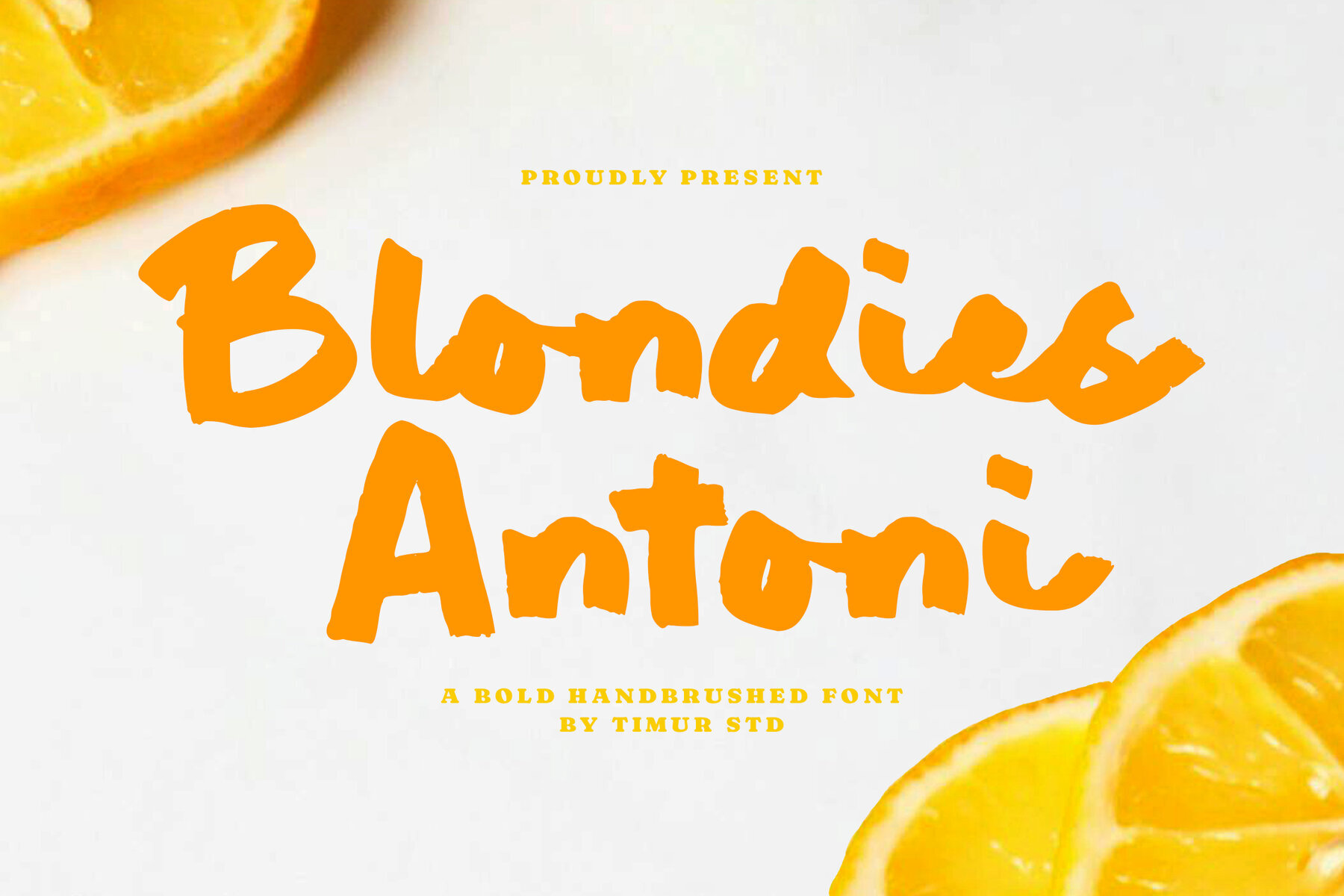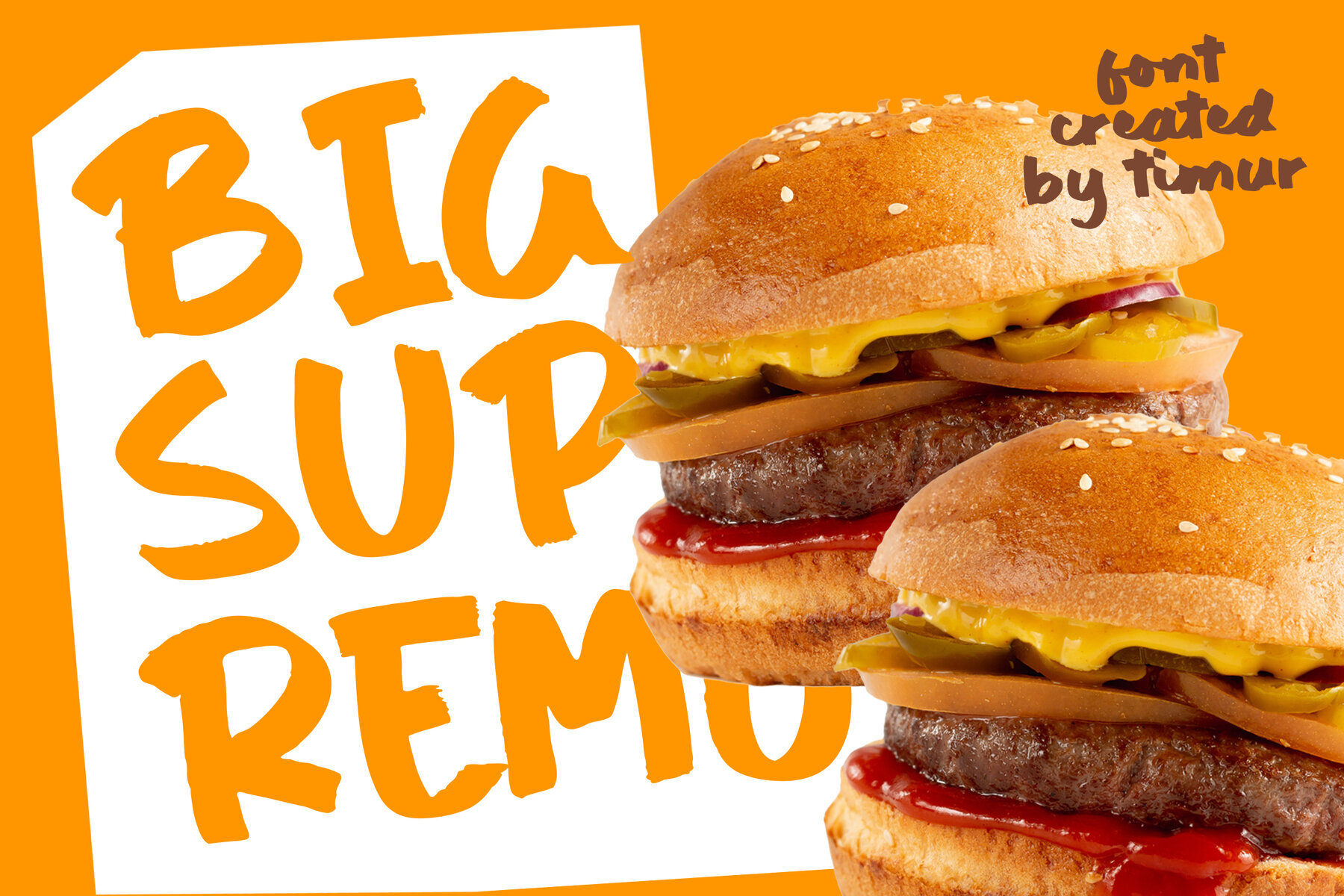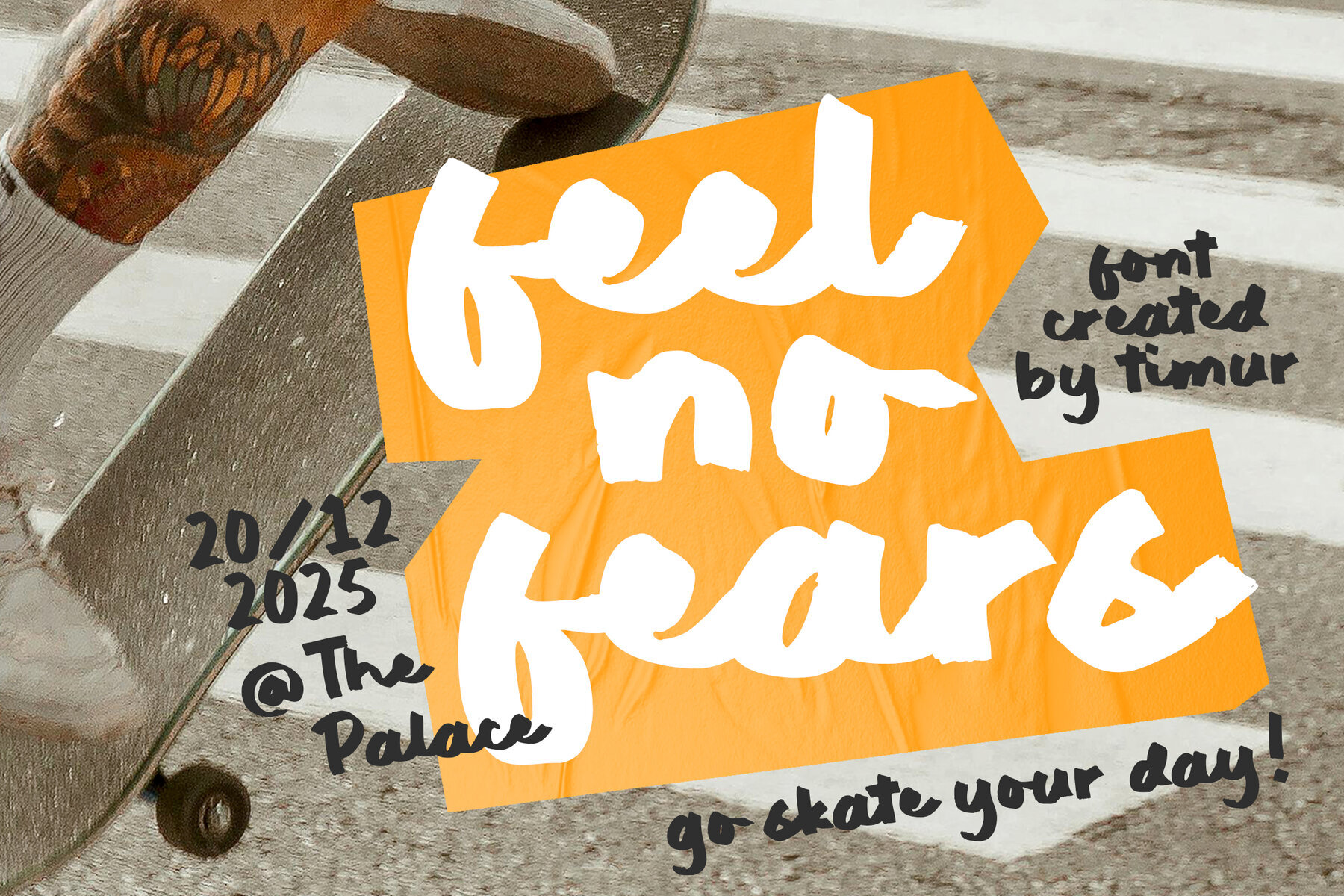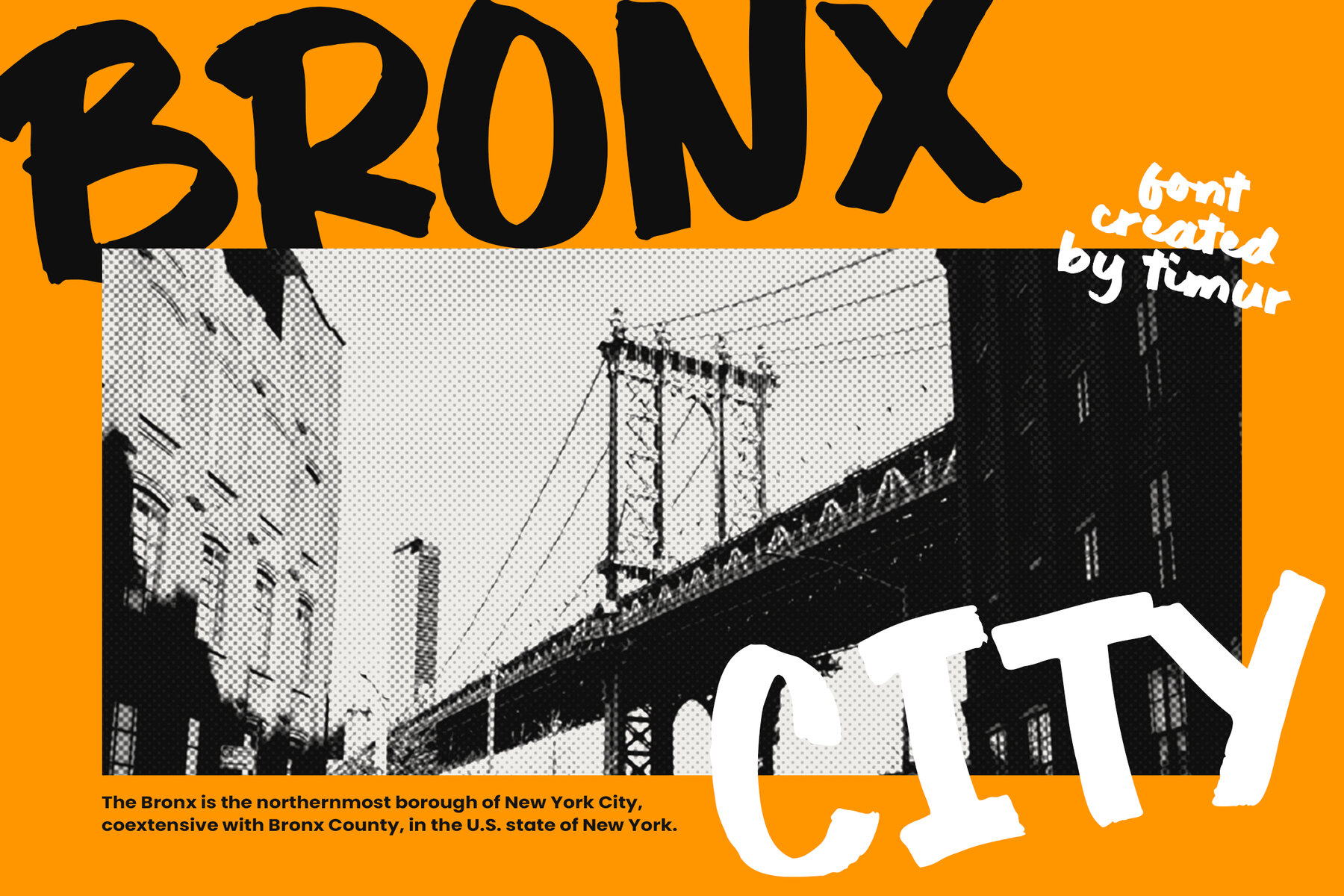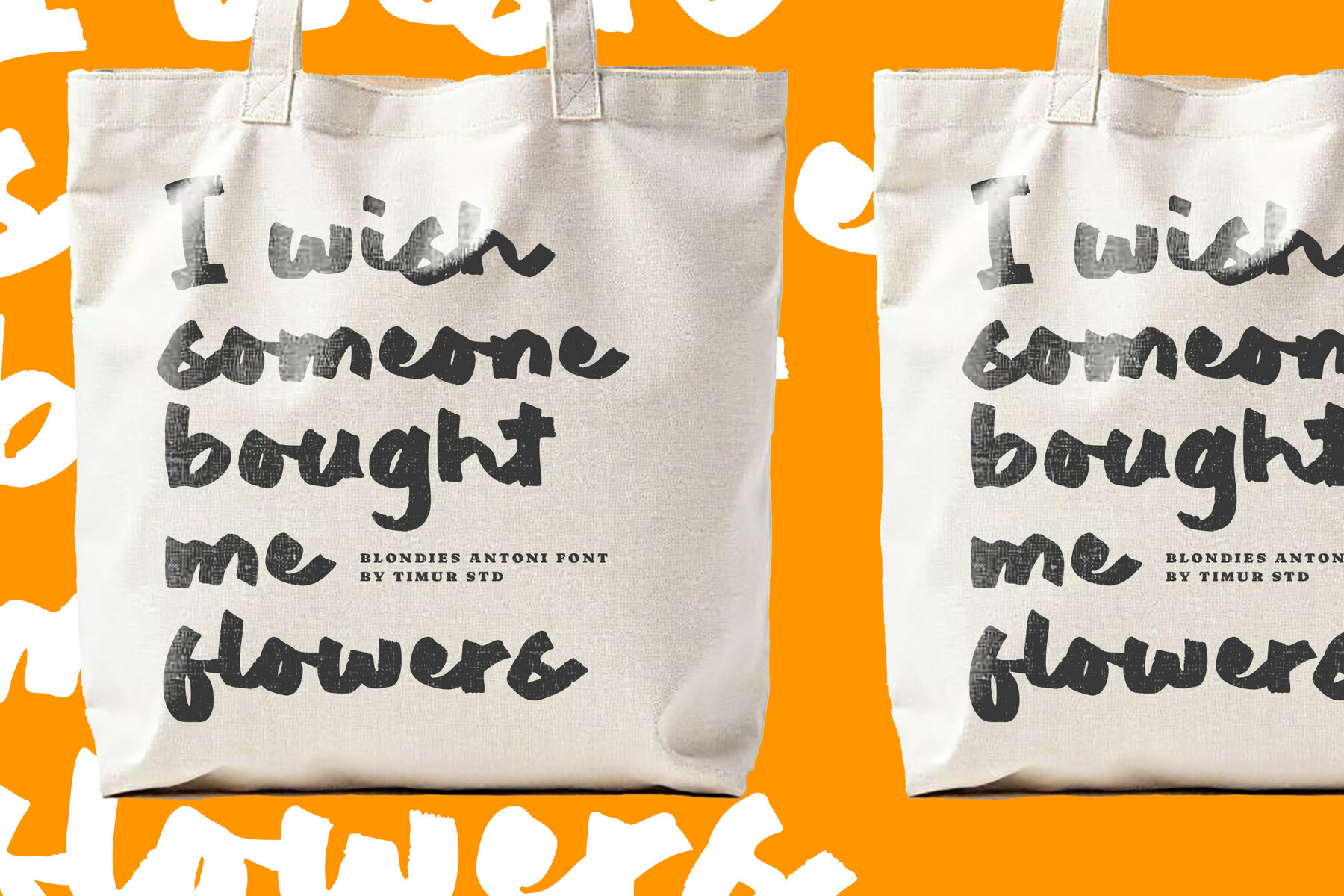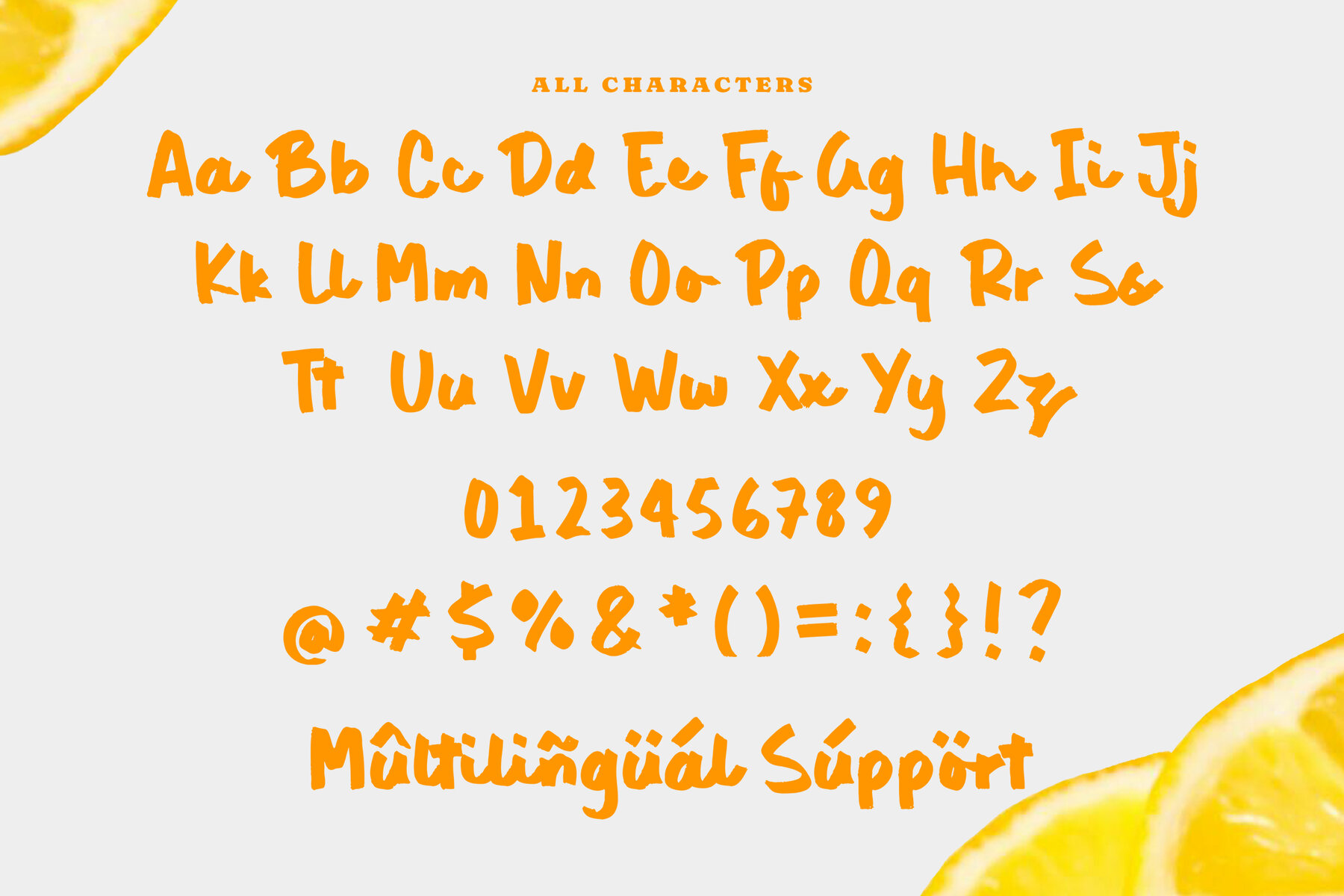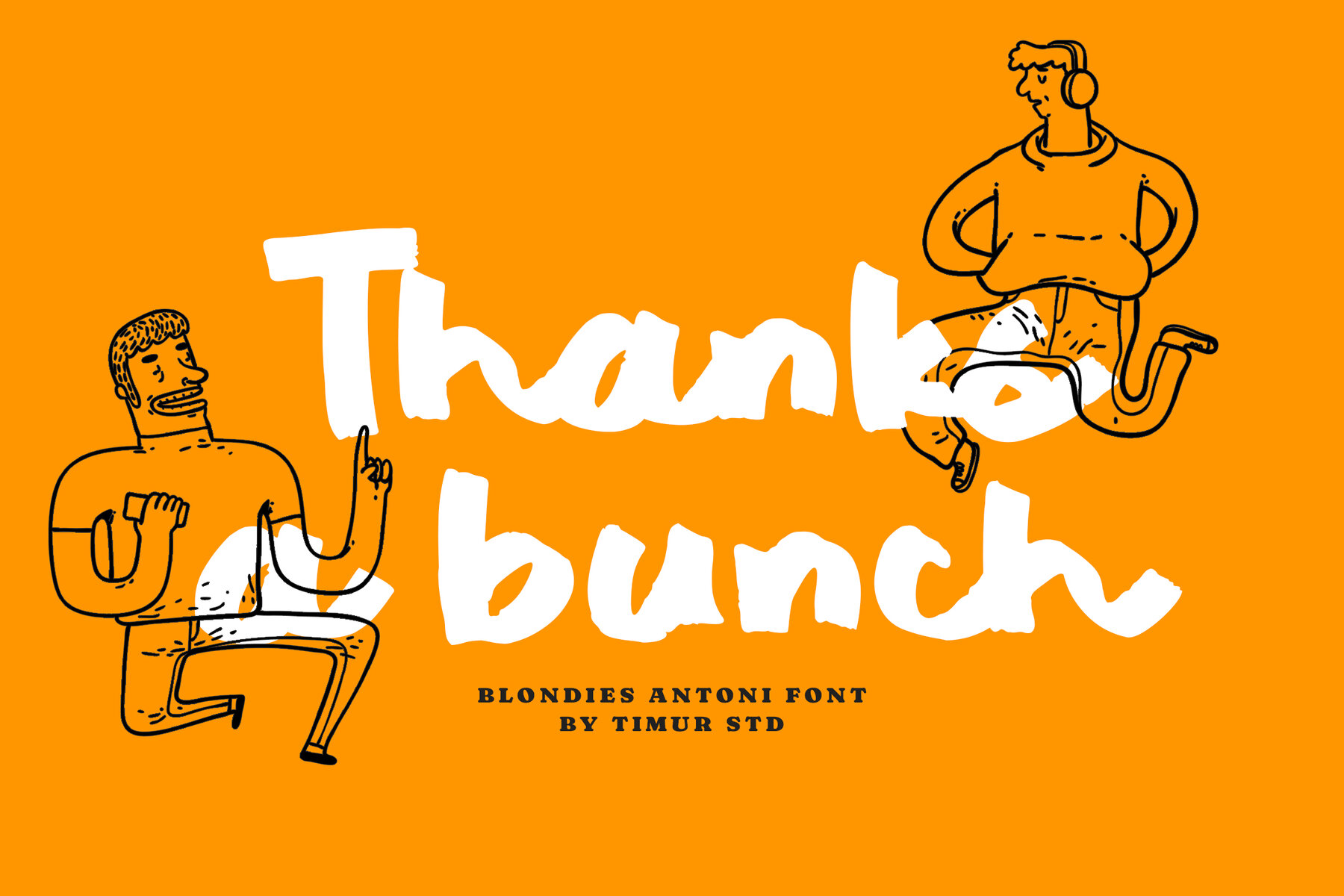
Blondies Antoni Font
Blondies Antoni
Blondies Antoni is a vibrant hand-brushed display font that infuses modern artistry into your design projects. With its textured strokes and dynamic shapes, this font exudes energy and creativity, making it an ideal choice for designs that demand attention. Whether you're creating posters, logos, or branding materials, Blondies Antoni adds an artistic edge that stands out.
Perfect for projects that require a bold and spirited touch, Blondies Antoni’s aesthetic makes it a top choice for designers seeking to bring a unique character to their work. Its striking presence and lively form offer a fresh perspective, providing versatility and a modern feel to any visual creation.